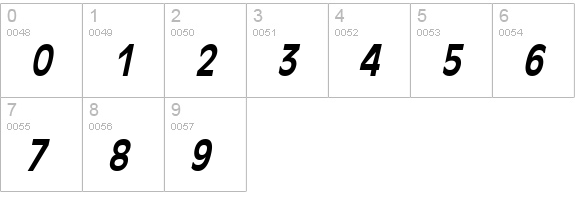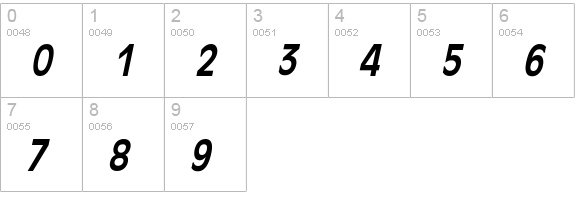
Antiqua 101 Condensed BoldItalic Font Details
Antiqua 101 Condensed BoldItalic is a distinctive, condensed-width variant in the Antiqua typeface family \xE2\x80\x94 well suited to design and typography projects.
Antiqua 101 Condensed BoldItalic font exudes elegance and sophistication with its sleek design and striking bold italic style. This versatile font is perfect for creating eye-catching headlines, titles, and branding materials that demand attention. Its condensed form adds a modern touch while maintaining readability. What makes Antiqua 101 Condensed BoldItalic font even more appealing is that it is available for free download at FontsMarket.com. This means that you can elevate your design projects without breaking the bank. Don't miss out on this fantastic opportunity to enhance your typography arsenal with this stunning typeface. Download Antiqua 101 Condensed BoldItalic font today and let your creativity shine!